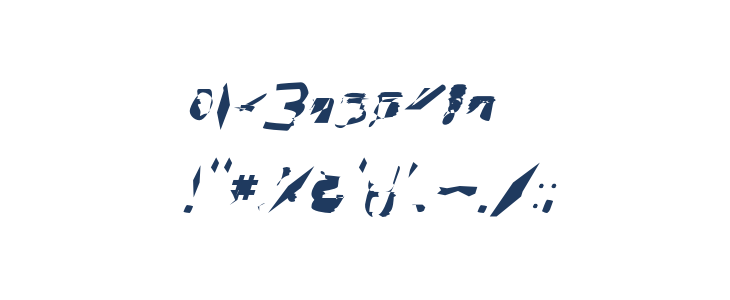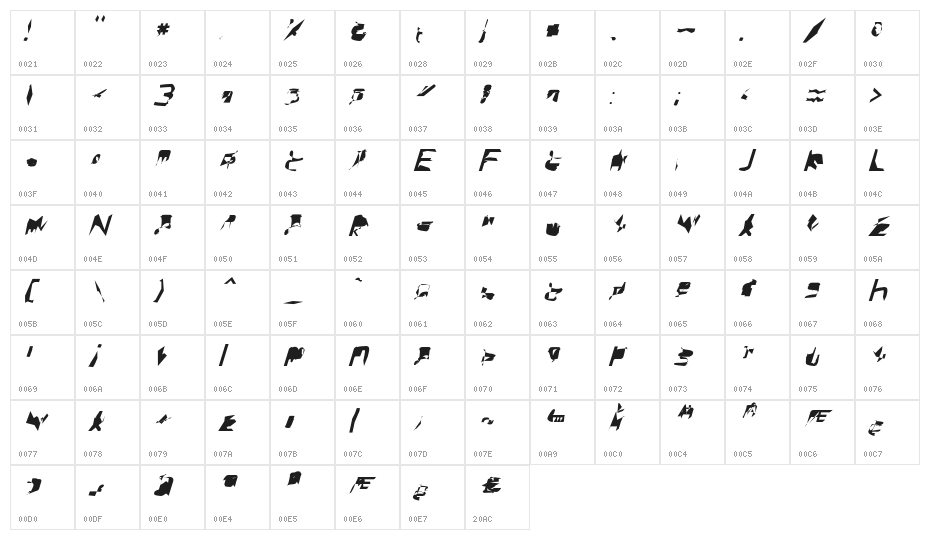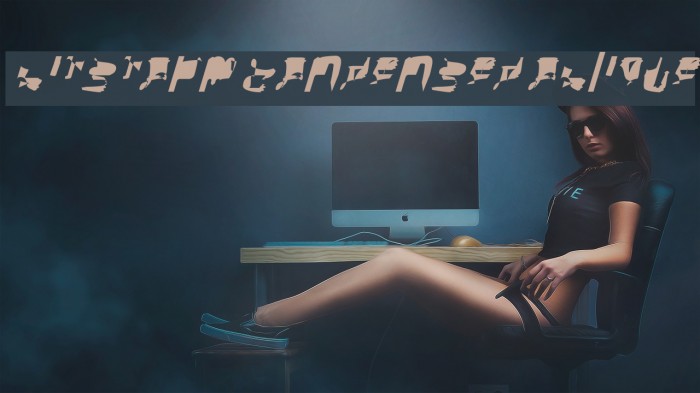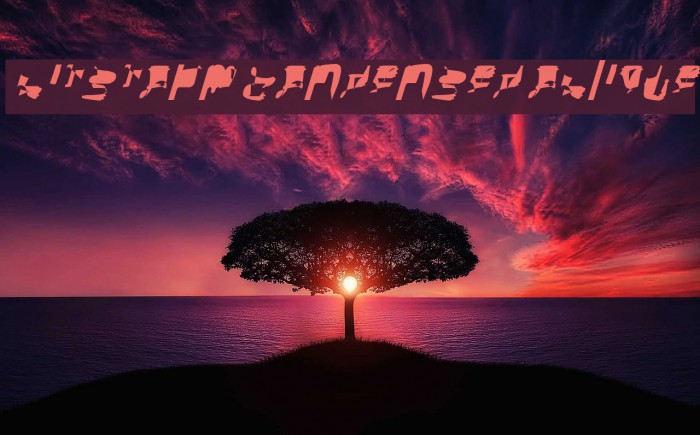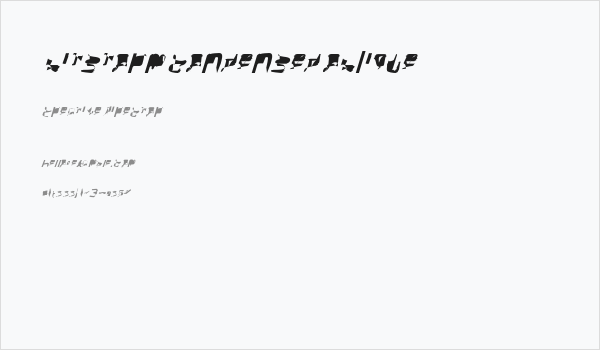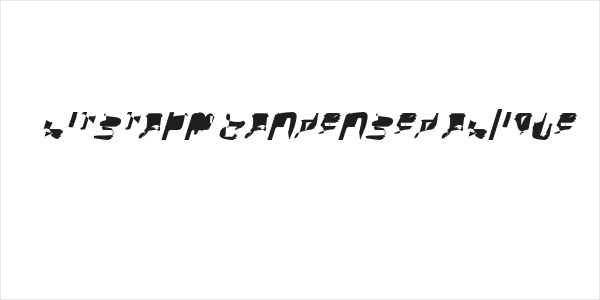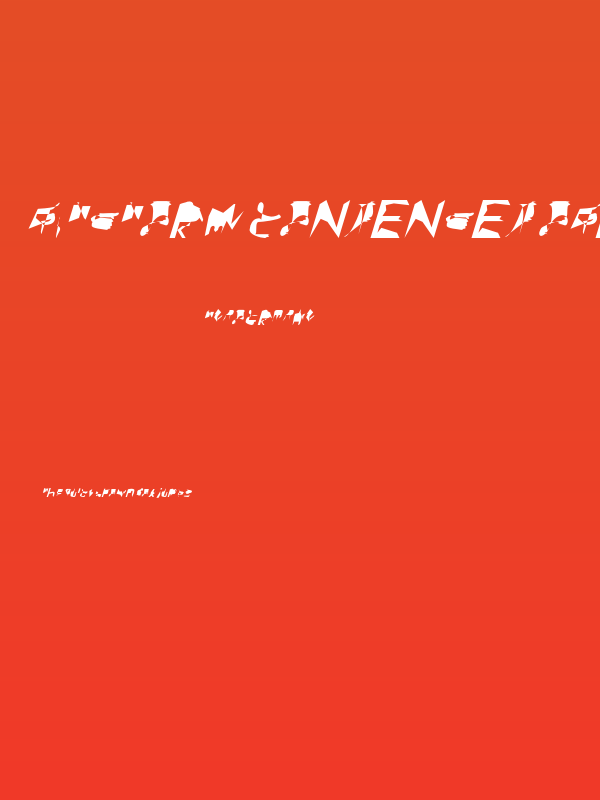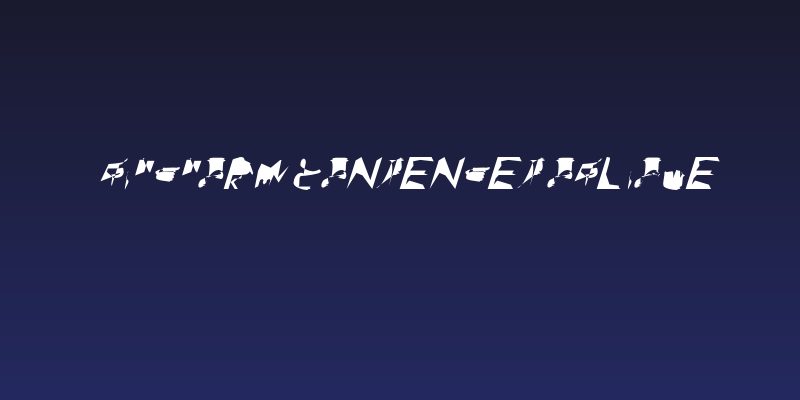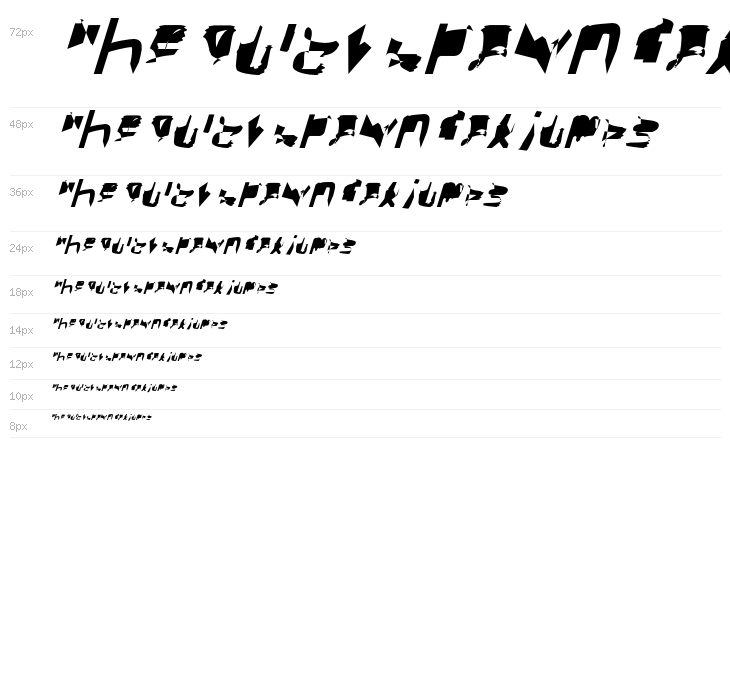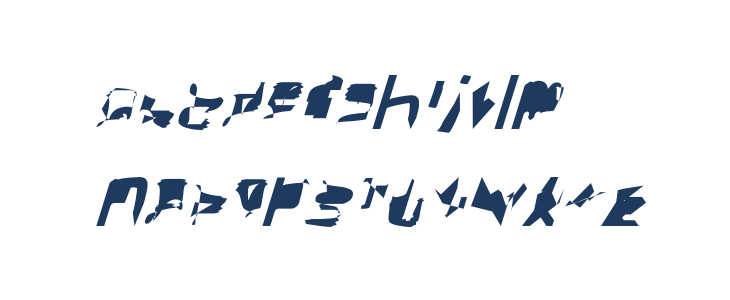
bitstorm condensed oblique Font
bitstorm condensed oblique Description
This font features a highly stylized and abstract design, characterized by its fragmented and distorted letterforms. The characters appear as if they have been shattered or broken, creating a dynamic and chaotic visual effect. The oblique angle adds a sense of motion and urgency, while the condensed width makes it compact and space-efficient. Despite its unconventional appearance, the font maintains a consistent baseline and x-height, ensuring readability in short bursts. The bold strokes and irregular shapes give it a unique, edgy aesthetic that stands out.
| Overall Style | Modern, Edgy |
| Proposed Projects | Ideal for edgy branding, album covers, poster designs, and modern art projects. |